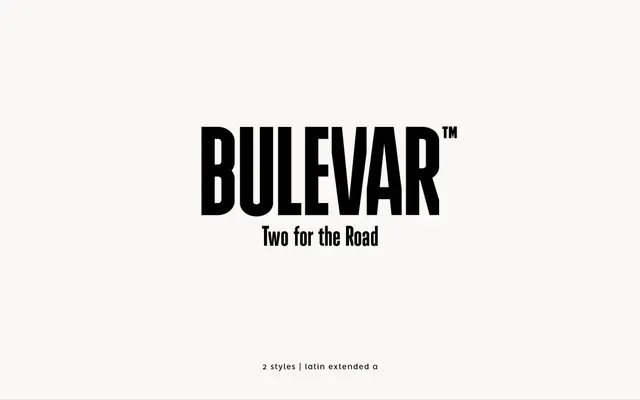
Bulevar
atipo foundry · Raul Garcia del Pomar, Ismael Gonzalez · 2014
A high-contrast art deco display family by atipo, with a Regular and Poster cut drawn from early twentieth century European poster lettering.
A display family by Raul Garcia del Pomar and Ismael Gonzalez at atipo foundry, drawing on early twentieth century art deco poster lettering. Bulevar comes in a Regular and a Poster cut where contrast is pushed further, with stylistic alternates, fractions and case-sensitive forms in the OpenType layer. Suited to fashion, beauty and editorial display where a vintage European poster reference is wanted.
A high-contrast display family rooted in early twentieth century French and Spanish poster lettering, with a Regular for general display use and a Poster cut for the heaviest contrast.